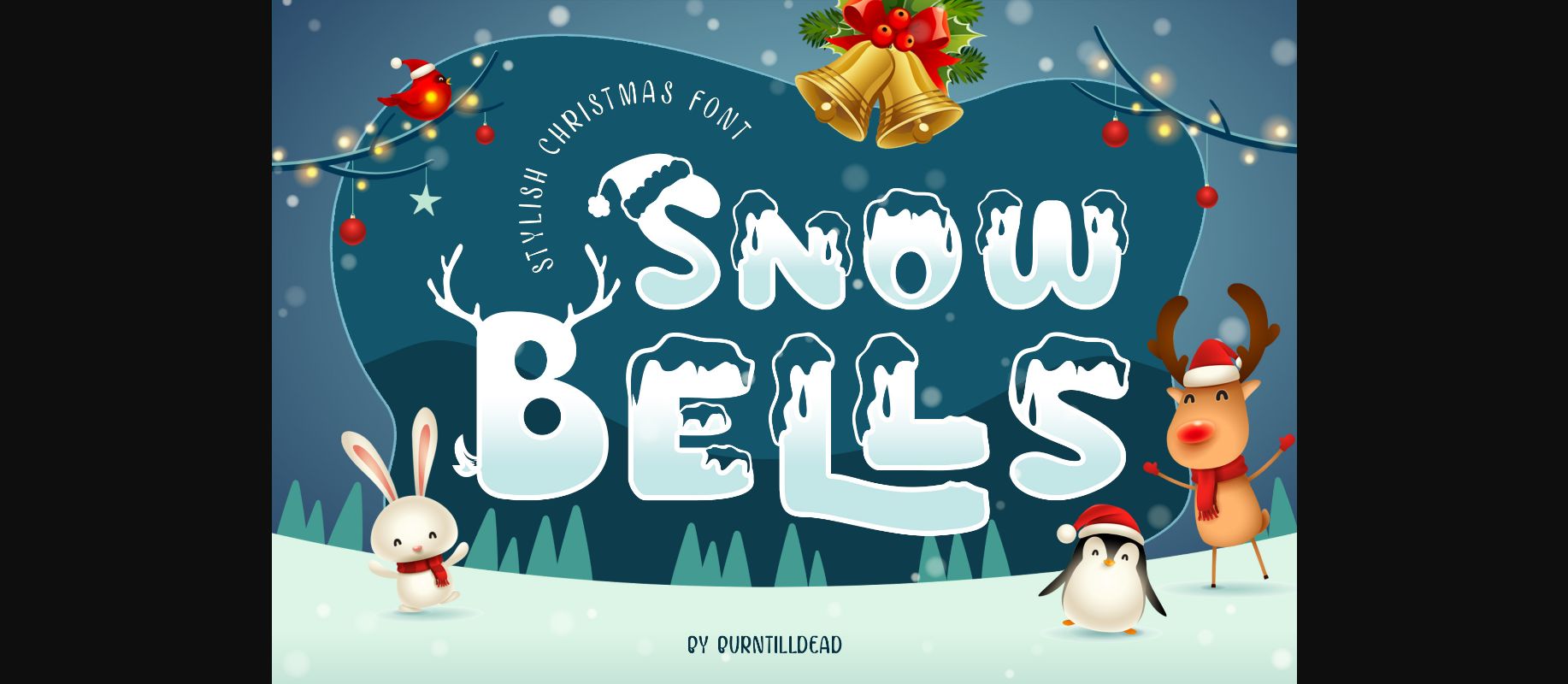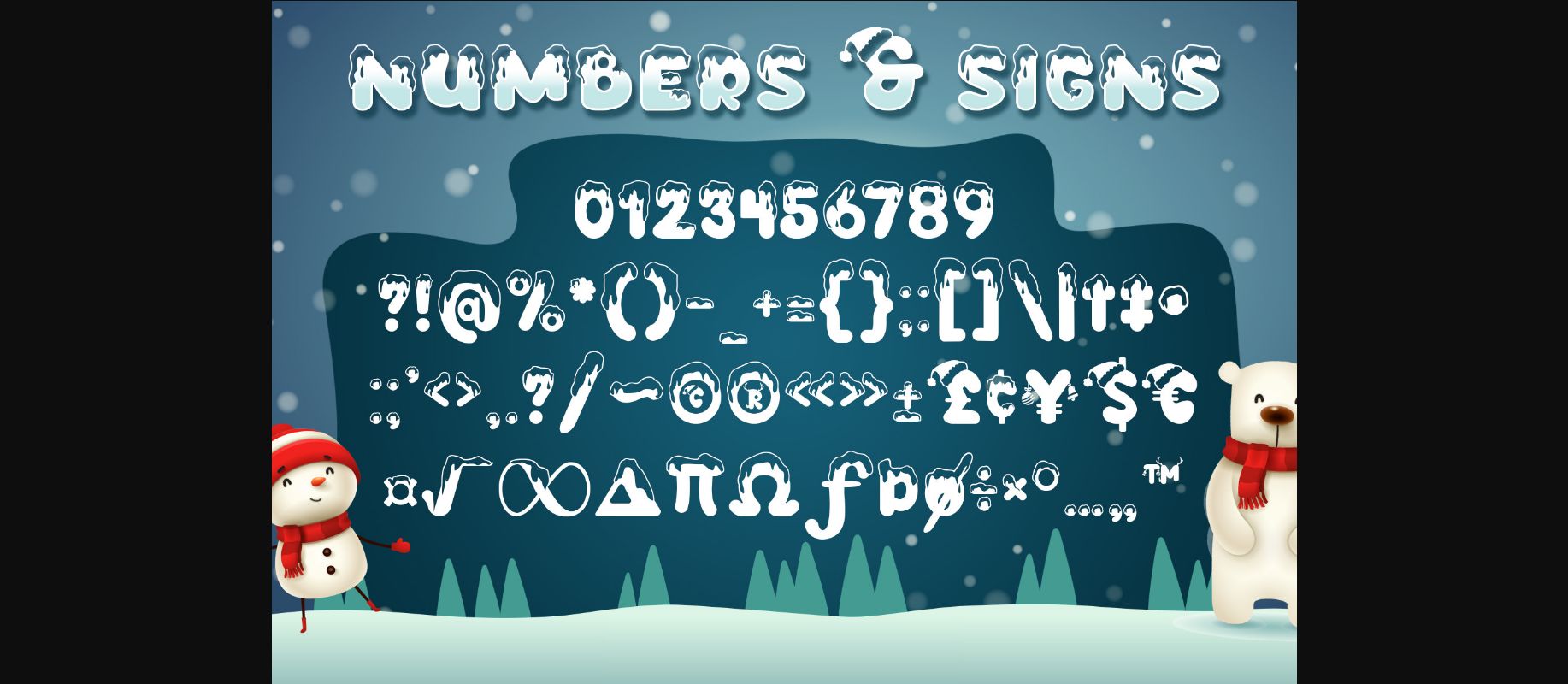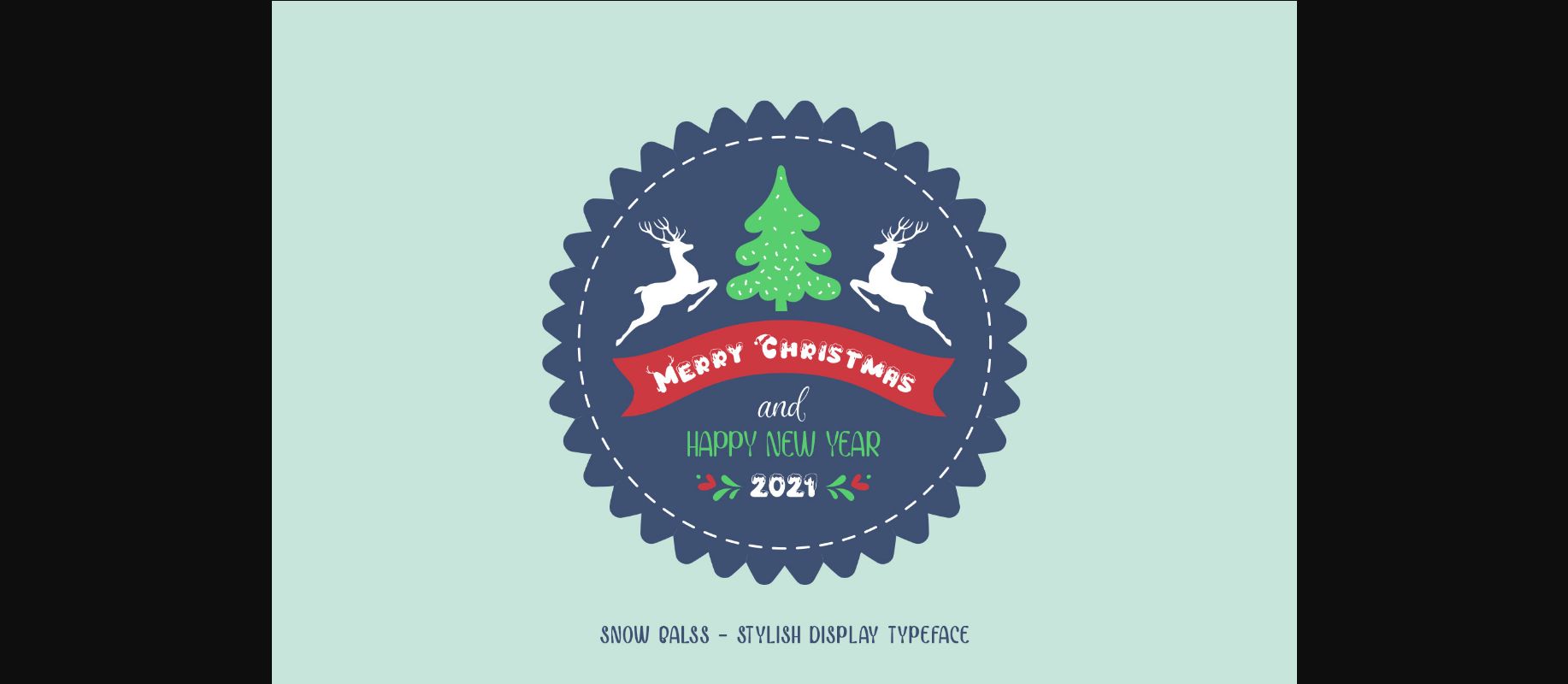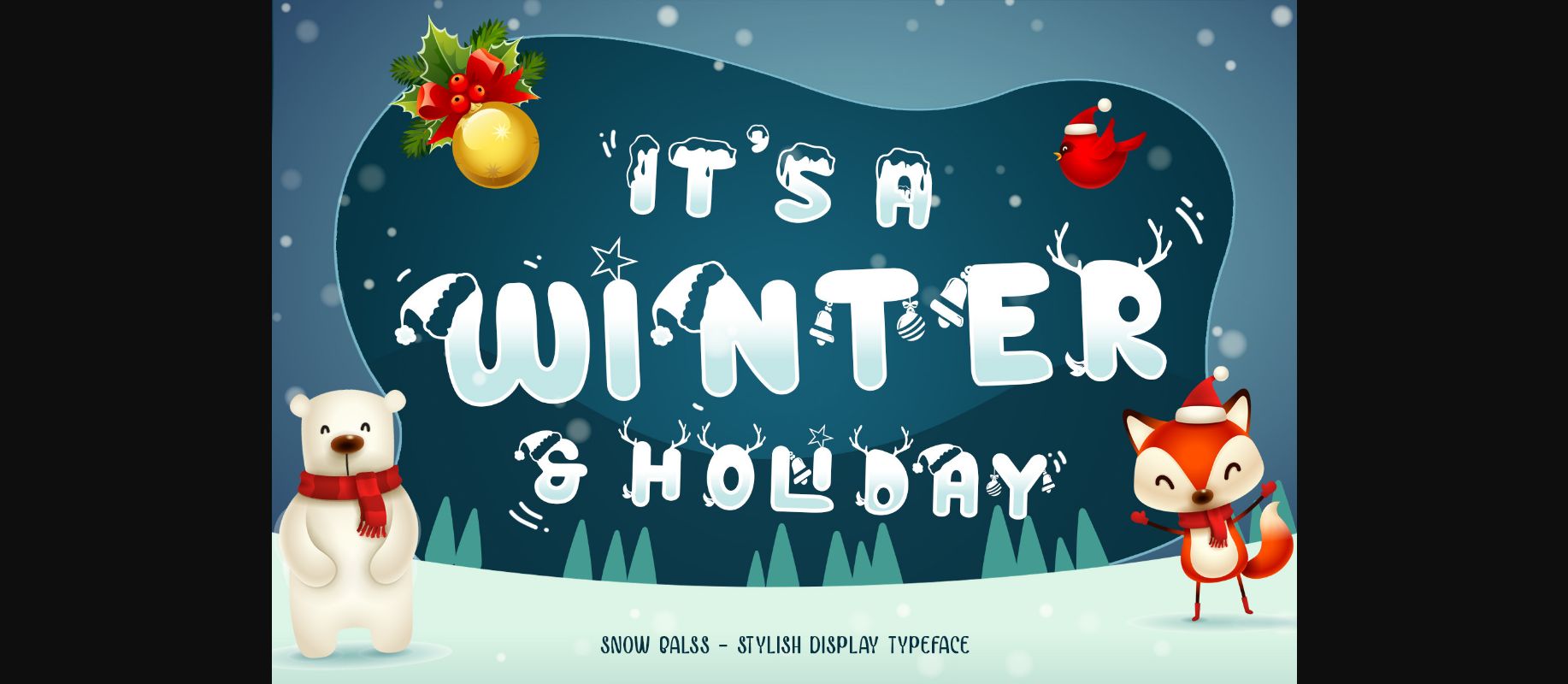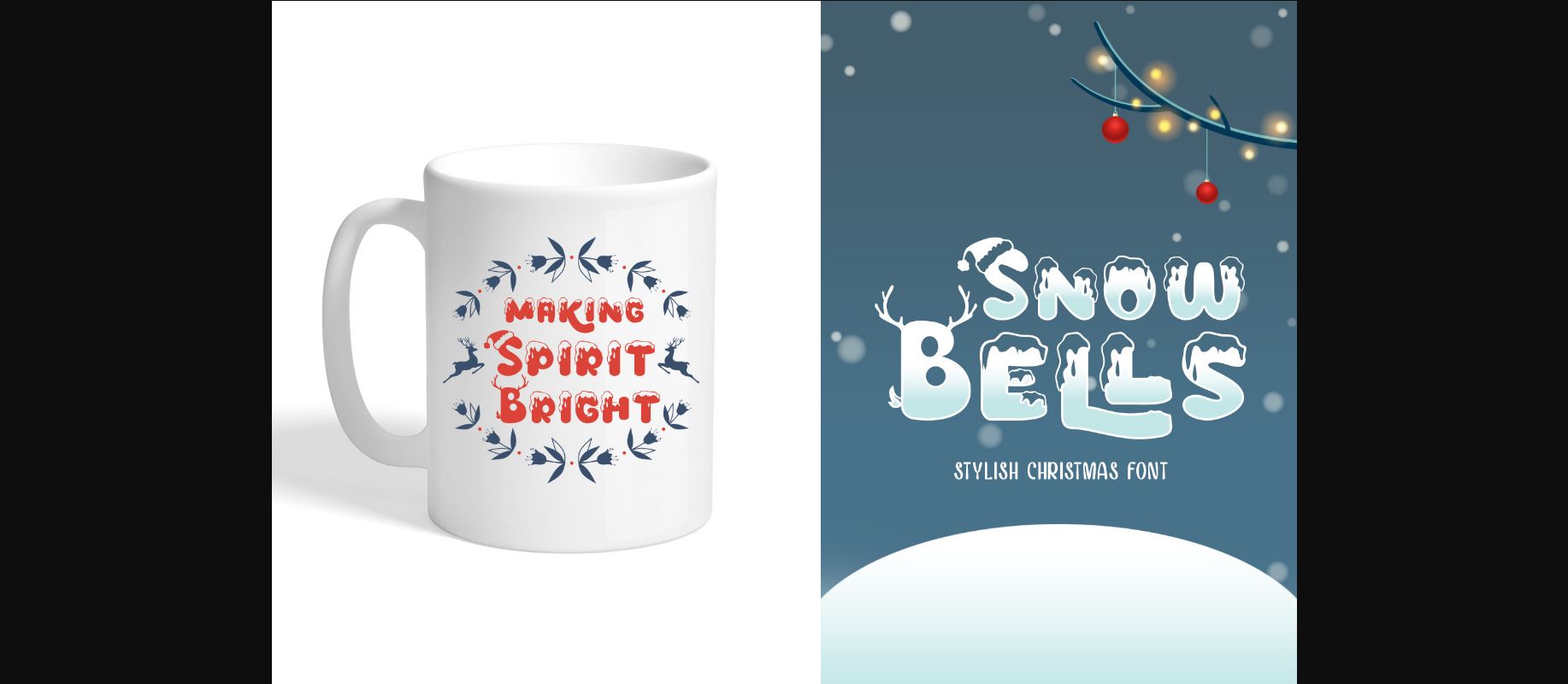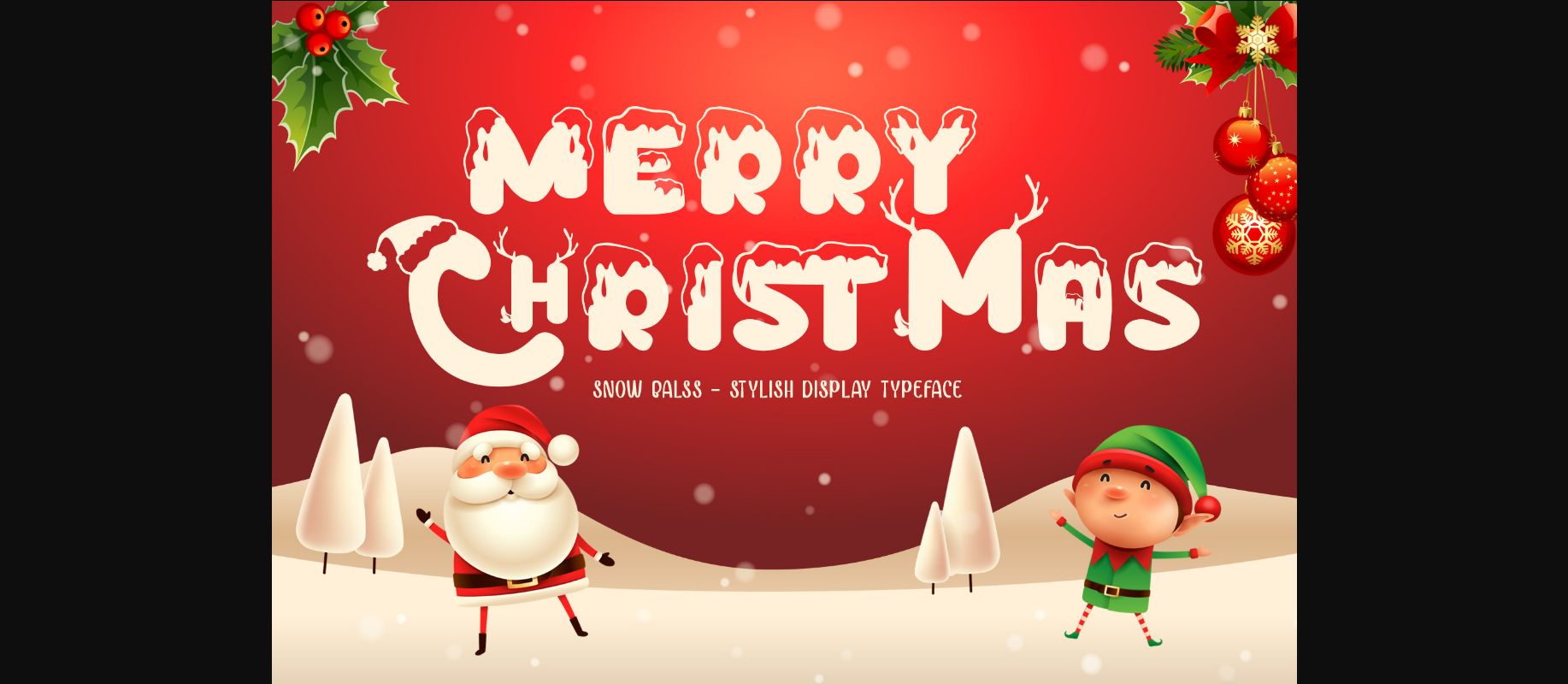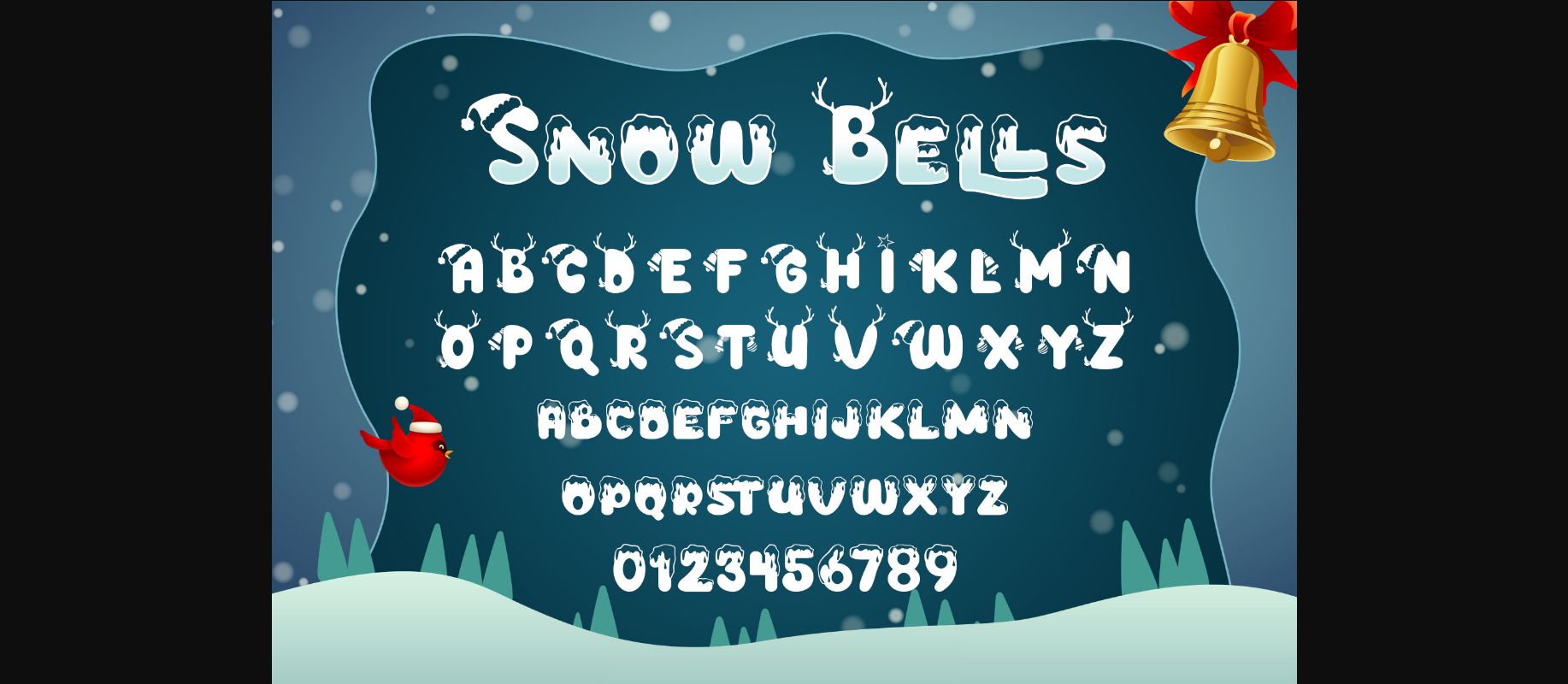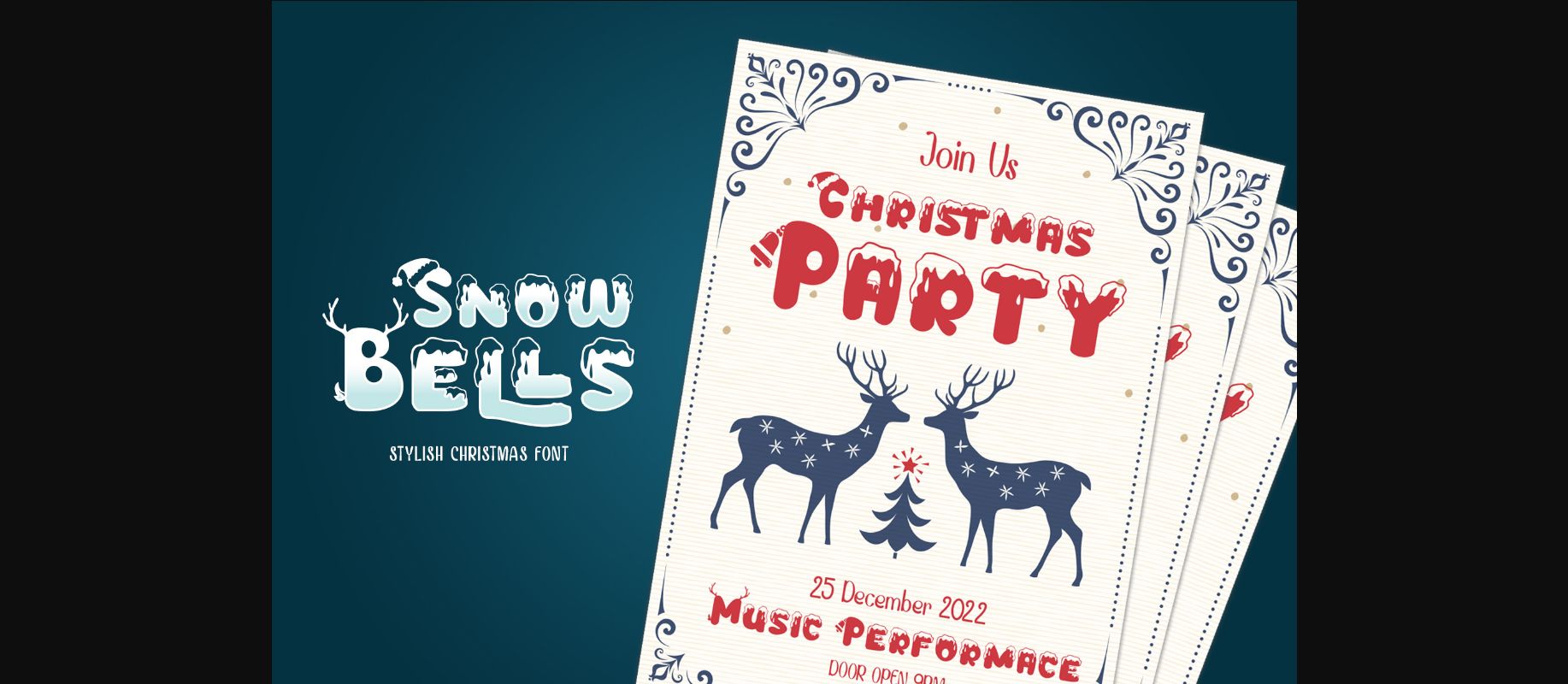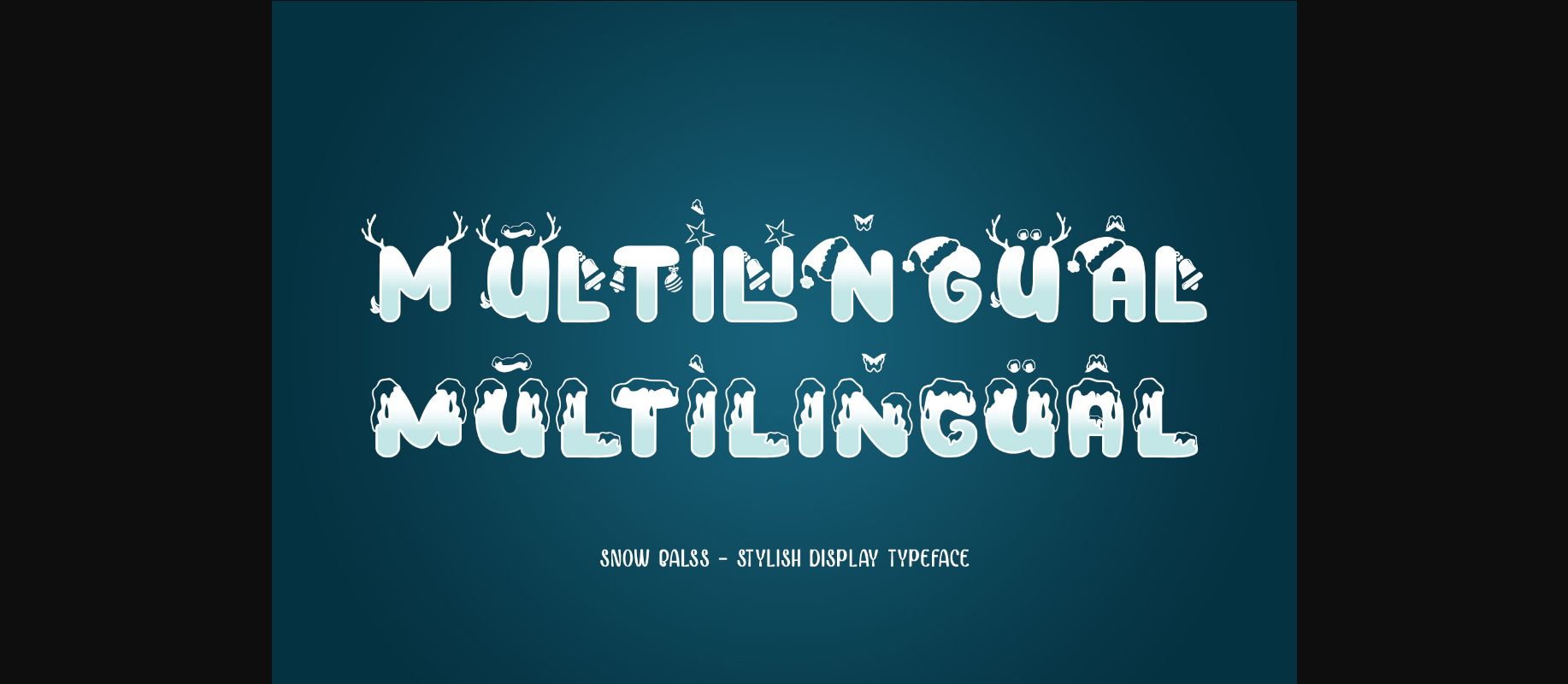
About Snow Bells Font
Snow Bells is a cute and wintery decorative font. It is PUA encoded which means you can access all glyphs and swashes with ease!